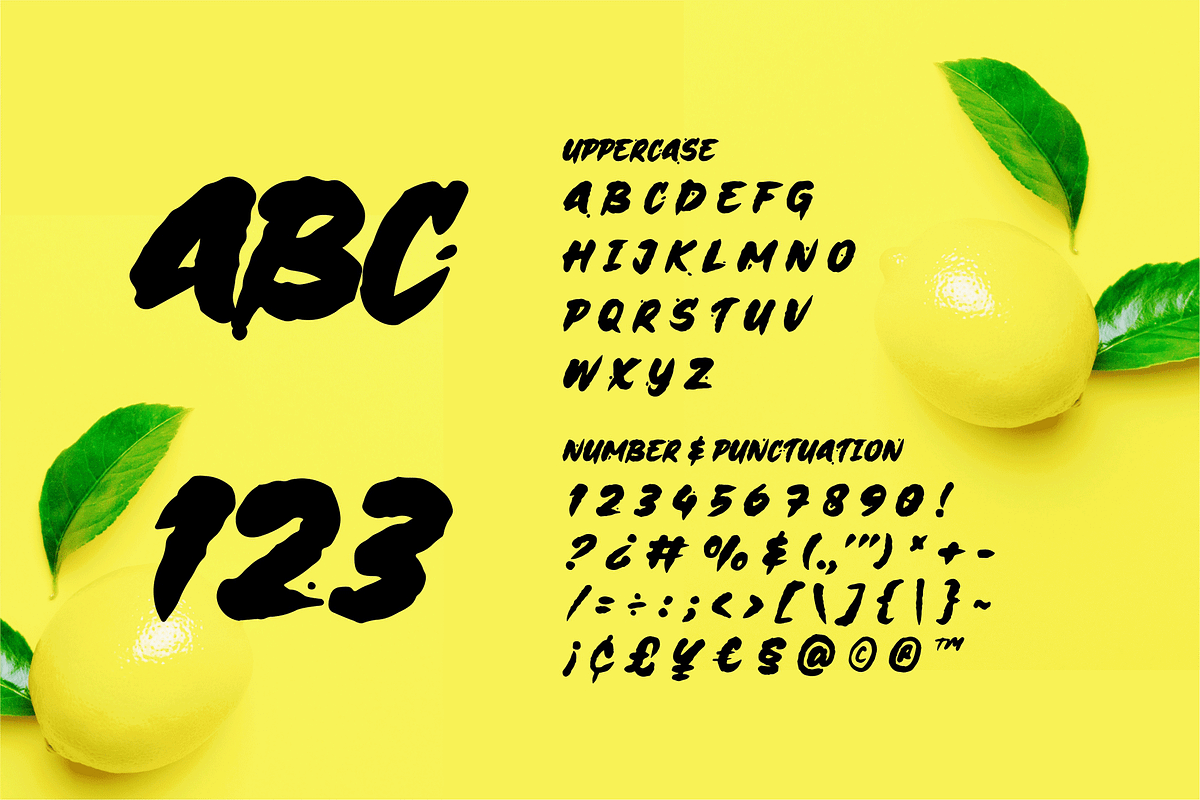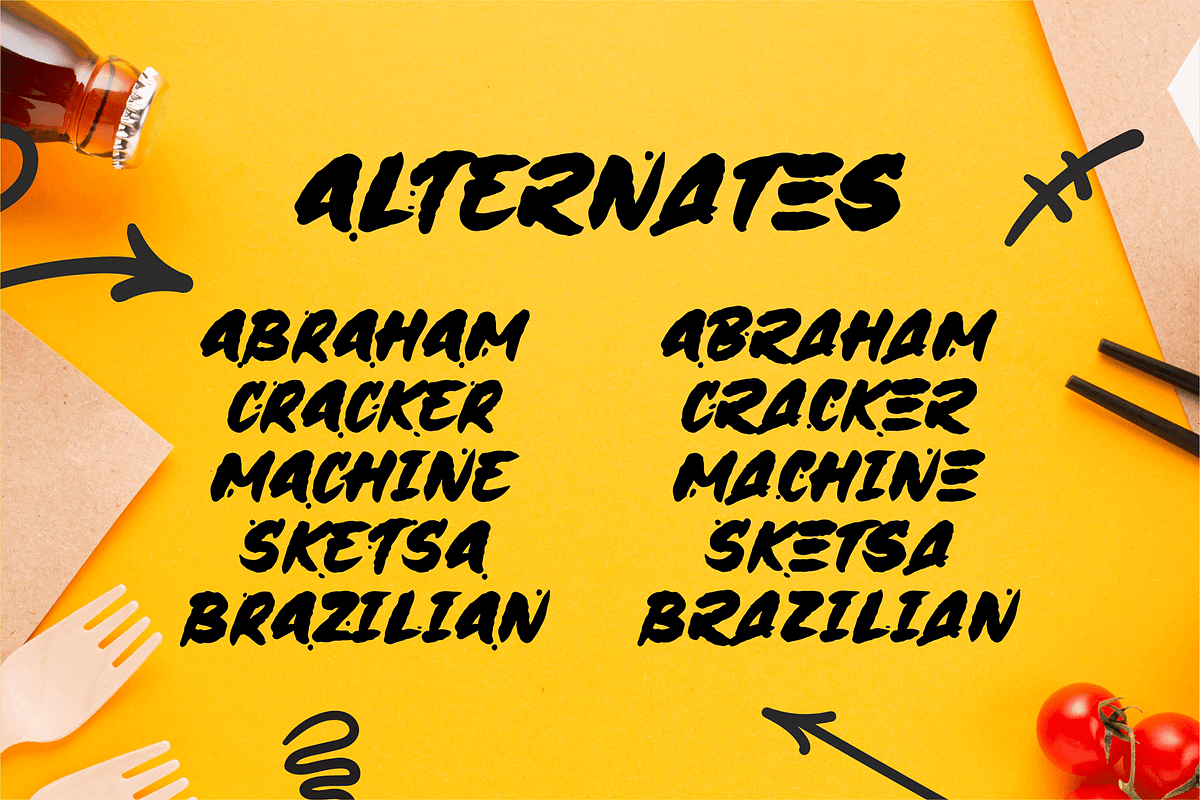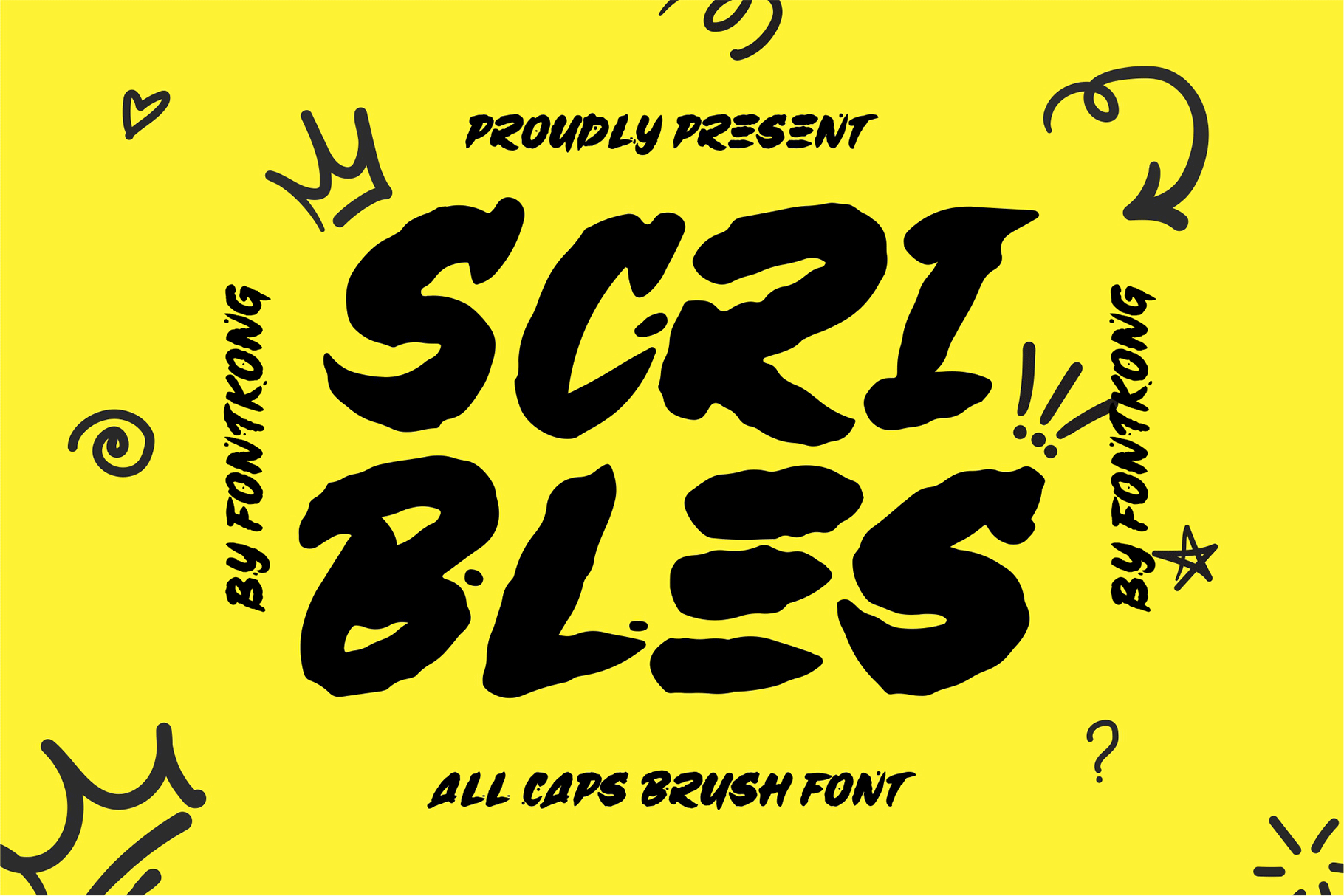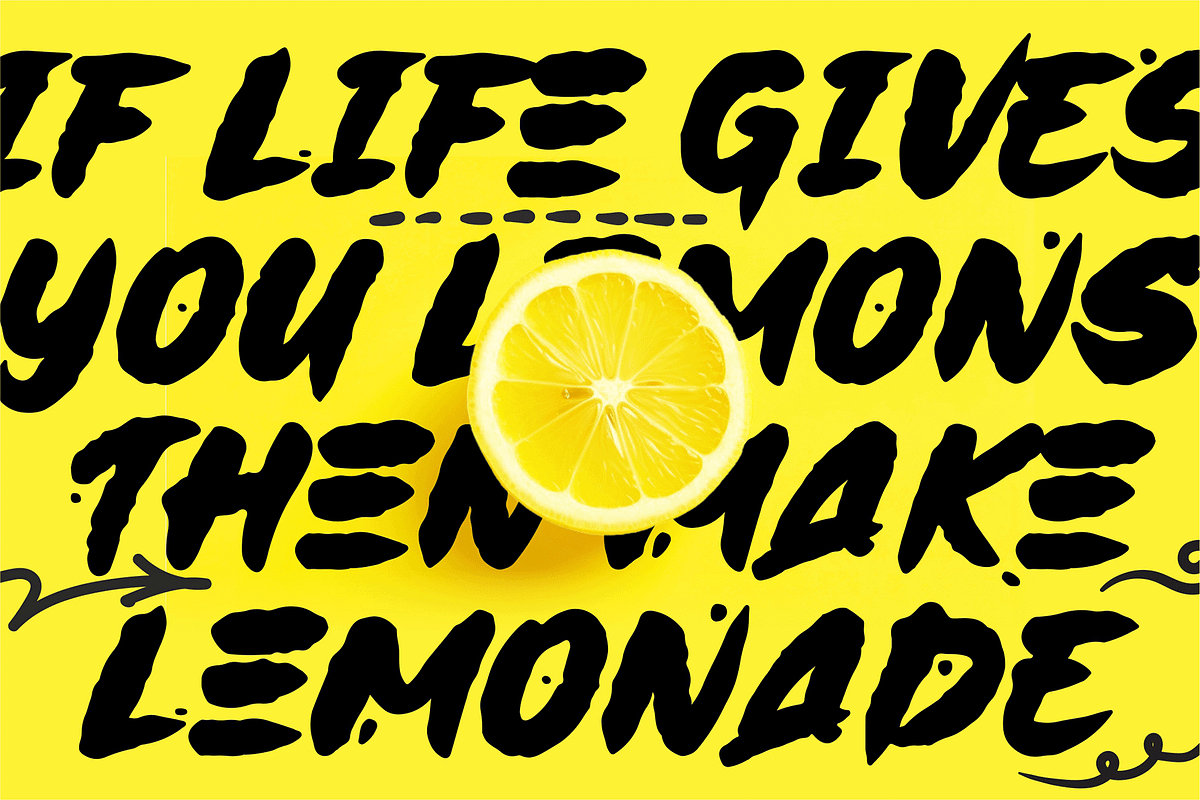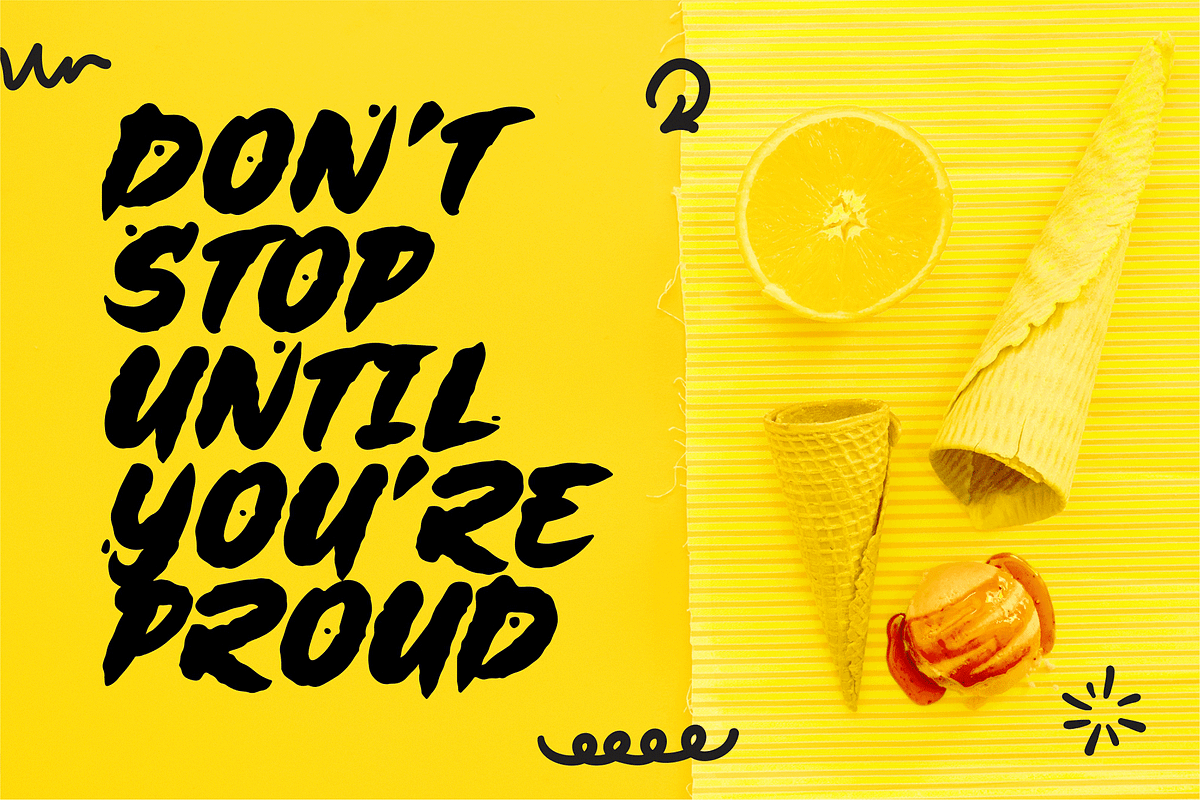
Scribles – A Brush Font
Scribles is a dynamic brush font designed to bring energy and personality to your projects. With its bold strokes, natural textures, and expressive movement, this font captures the essence of hand-painted artistry, making it ideal for eye-catching headlines, branding, posters, merchandise, and social media graphics.
Inspired by the raw beauty of brush lettering, Scribles delivers an organic and spontaneous feel that adds a sense of authenticity to any design. It includes uppercase and lowercase letters, numbers, punctuation, and multilingual support, making it versatile for various creative needs.
Whether you're crafting an edgy logo, a stylish apparel design, or an artistic quote, Scribles ensures your text stands out with a strong and energetic presence.